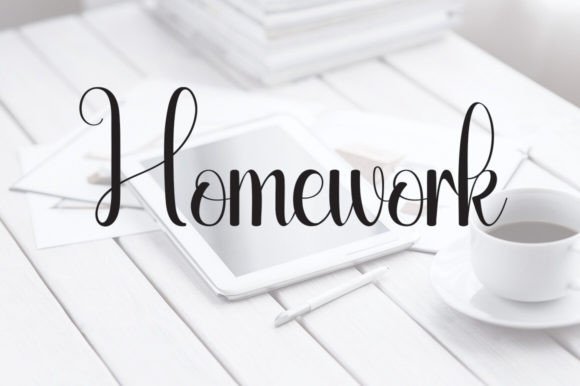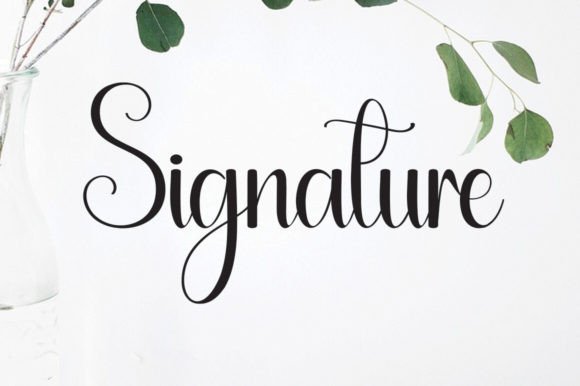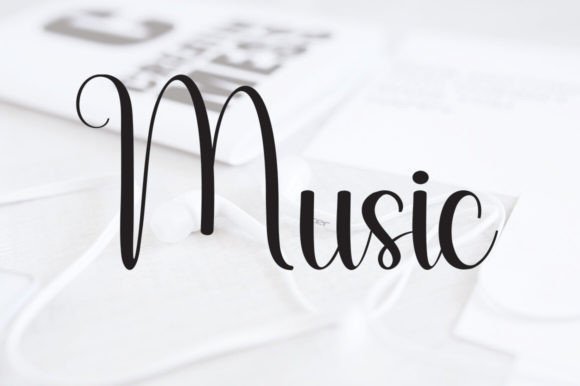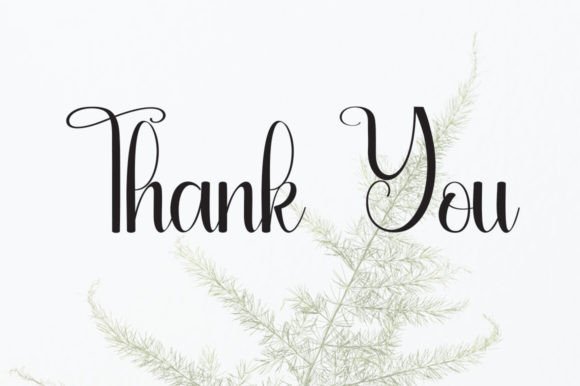
The Sweet Allure of Butterfly Font: A Designer’s Delight
I’ll never forget the time I was working on a project for a client who wanted a whimsical, romantic feel. I had spent hours scouring the internet for the perfect font, but nothing seemed quite right. That was until I stumbled upon Butterfly β a charming and flowing handwritten typeface that exuded sweetness with every curve. It was love at first sight! π
A First Impression: What Makes Butterfly Special
Butterfly promises to add an undeniable allure to a diverse range of creative concepts. With its delicate design aesthetic, this font imbues every project with a dash of joy and a soft touch of romance. The gentle strokes and captivating curves make a stunning statement thatβs hard to resist.
Here’s what I love about Butterfly:
- β¨ Delicate and elegant design that’s perfect for romantic or whimsical projects
- β Highly legible, even at smaller font sizes
- π« Beautiful OpenType features, including glyphs and stylistic alternates
And here are a few quirks to keep in mind:
- β οΈ Some of the letters may appear a bit narrow, so be mindful of spacing
- π€ Limited use of uppercase letters, but the lowercase letters more than make up for it
Butterfly was designed with the intention of capturing the essence of romance and whimsy. The designer wanted to create a font that would evoke feelings of joy and sweetness, and we think they’ve succeeded beautifully! π
Q: What type of projects is Butterfly best suited for?
A: Butterfly is perfect for romantic or whimsical projects, such as wedding invitations, branding, or packaging.
Q: Does Butterfly support OpenType features?
A: Yes, Butterfly supports OpenType features, including glyphs and stylistic alternates.